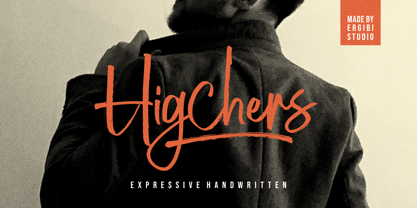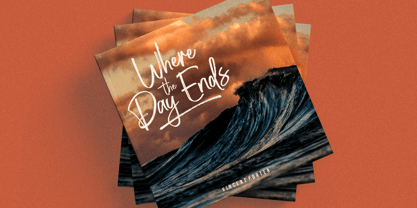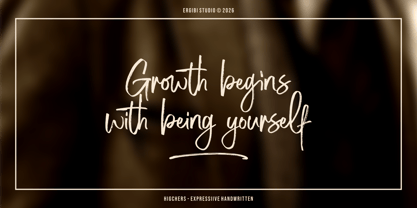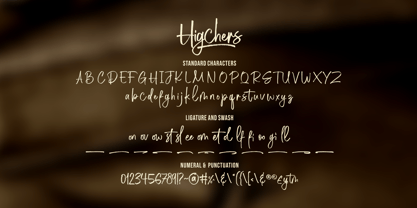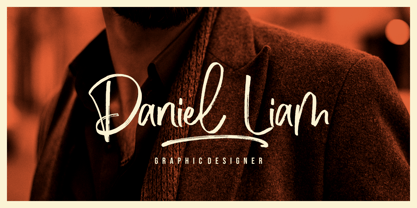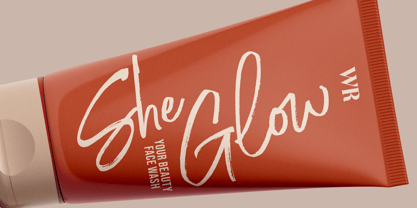
Higchers
par Ergibi Studio
La famille de polices Higchers a été conçue par Riyadh Rahman et publiée par Ergibi Studio. Higchers contient 1 styles.
Higchers is an expressive handwritten script font that captures the natural flow and emotion of real handwriting. Each character is crafted with dynamic strokes and organic curves, creating a lively and authentic script appearance that feels personal and full of character. Perfect for branding, logos, packaging, social media, and creative design projects, Higchers brings warmth and elegance to any composition. Its natural movement and smooth connections make it ideal for designs that seek a genuine, stylish, and expressive handwritten touch. Ergibi Studio
Concepteurs: Riyadh Rahman
Éditeur: Ergibi Studio
Fonderie: Ergibi Studio
Maître d'ouvrage: Ergibi Studio